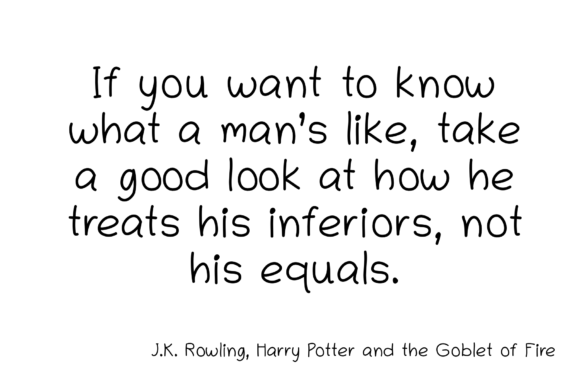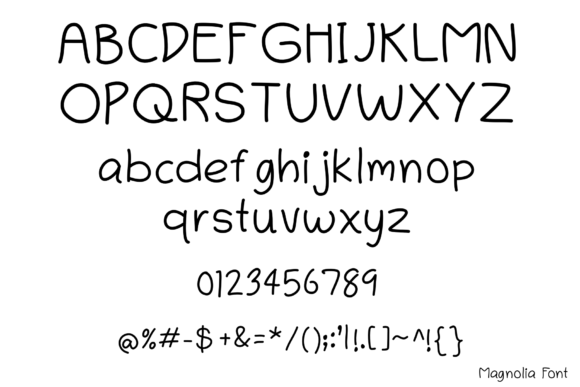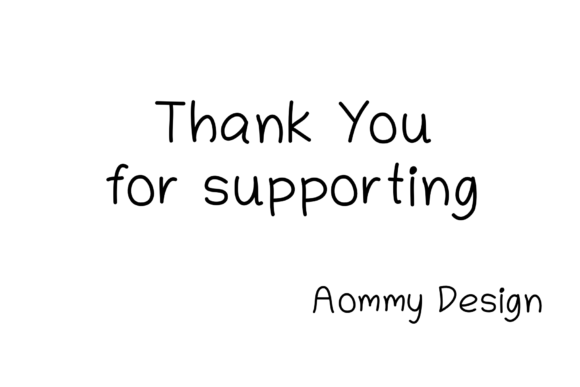
Magnolia Font
About Magnolia Font
Magnolia is a sweet and friendly handwritten font. Its natural and unique style makes it incredibly fitting to a large pool of designs.